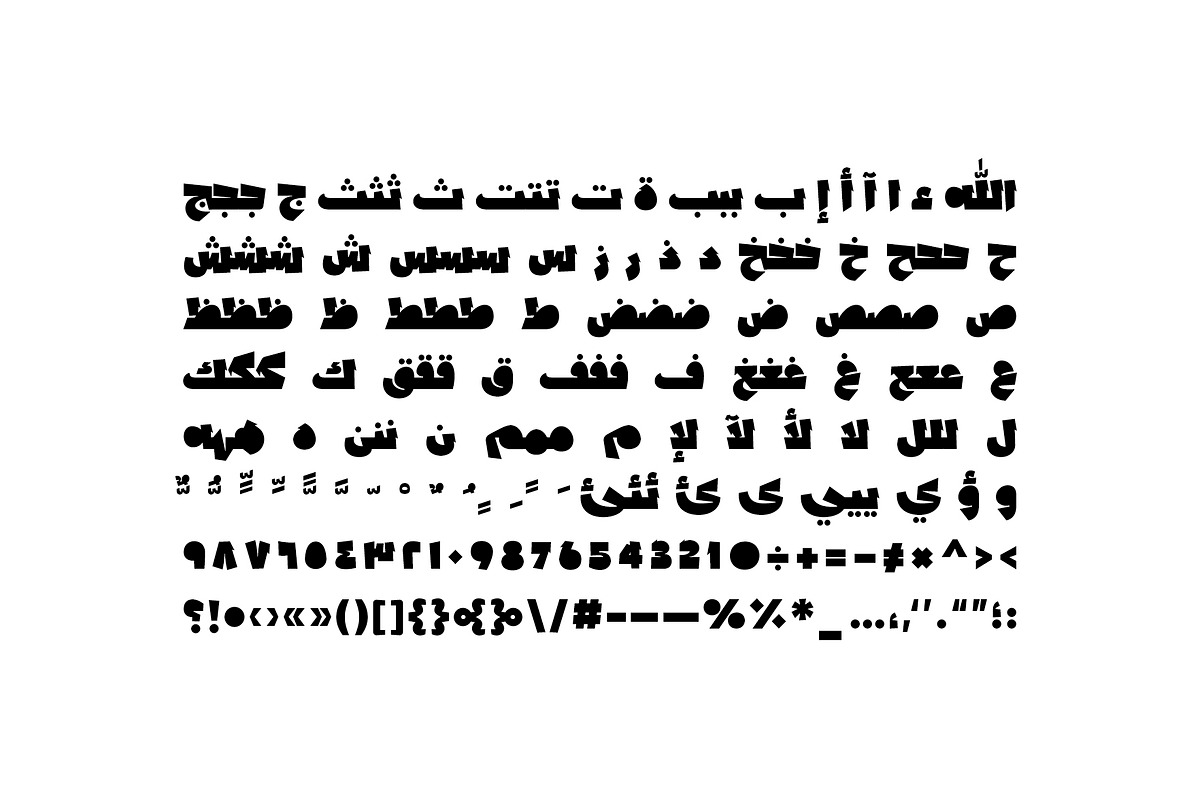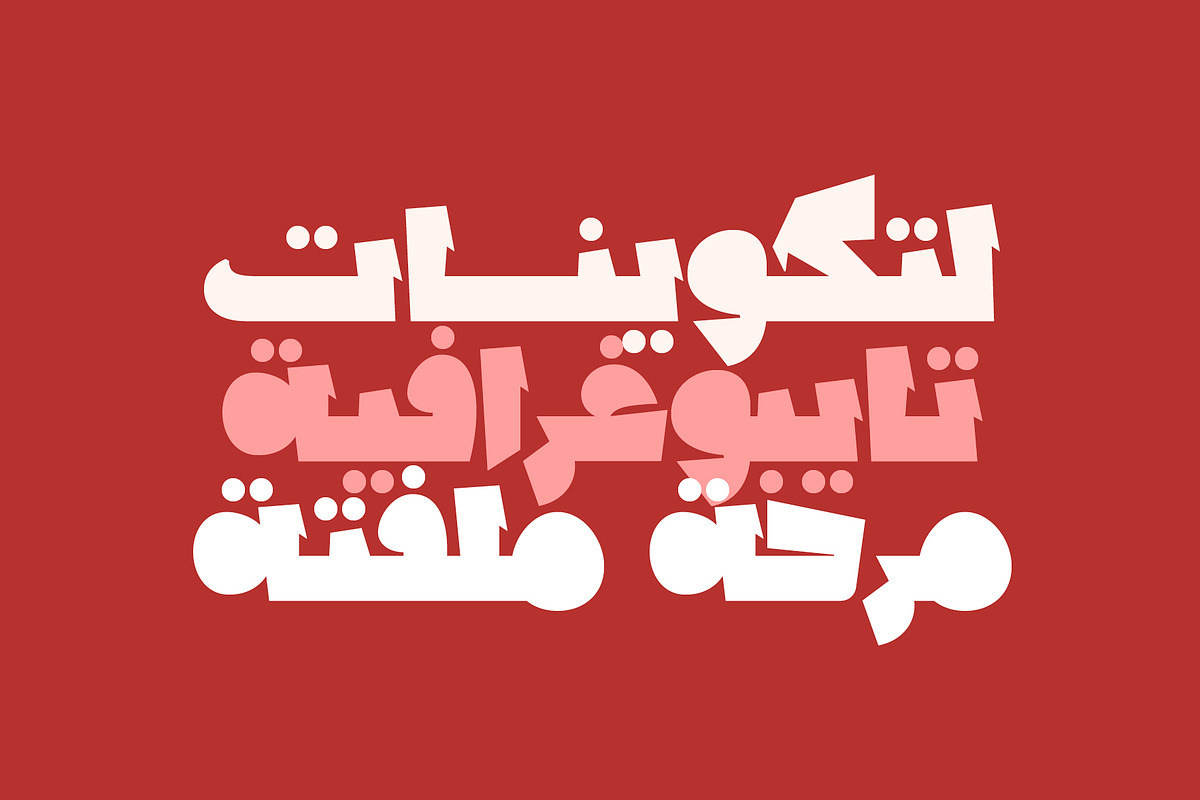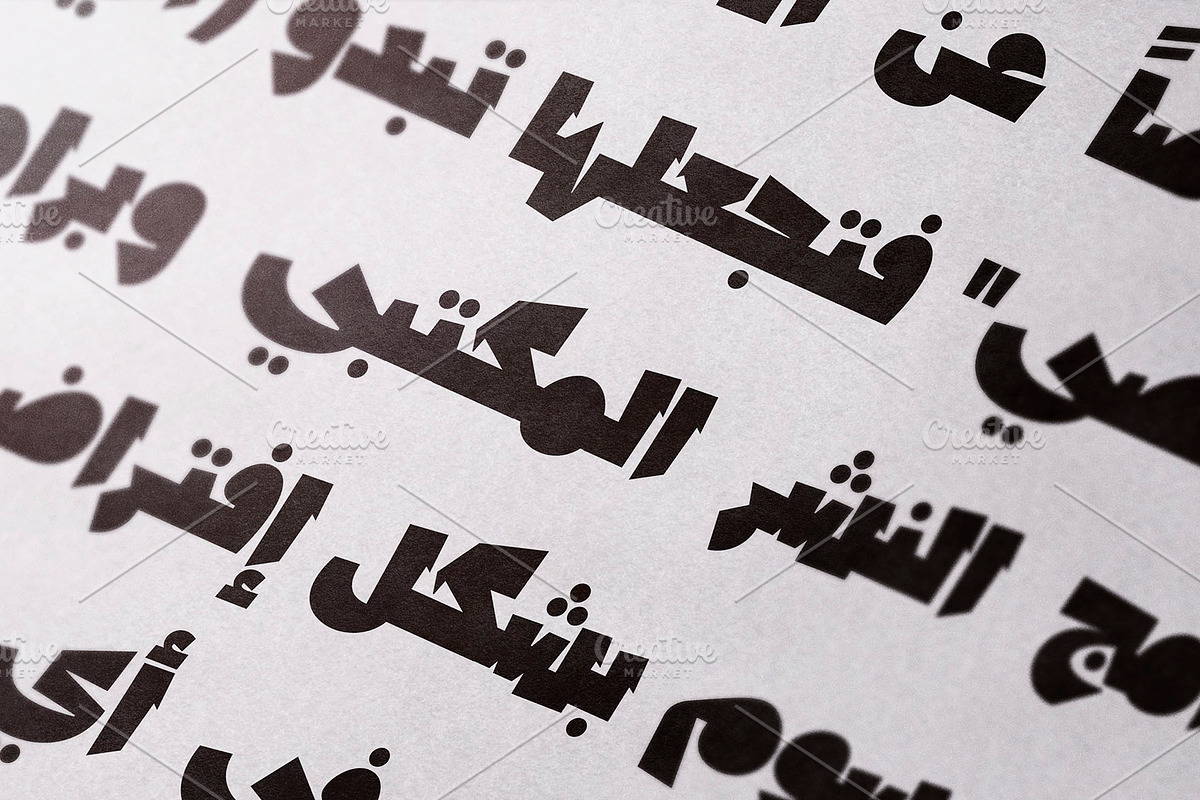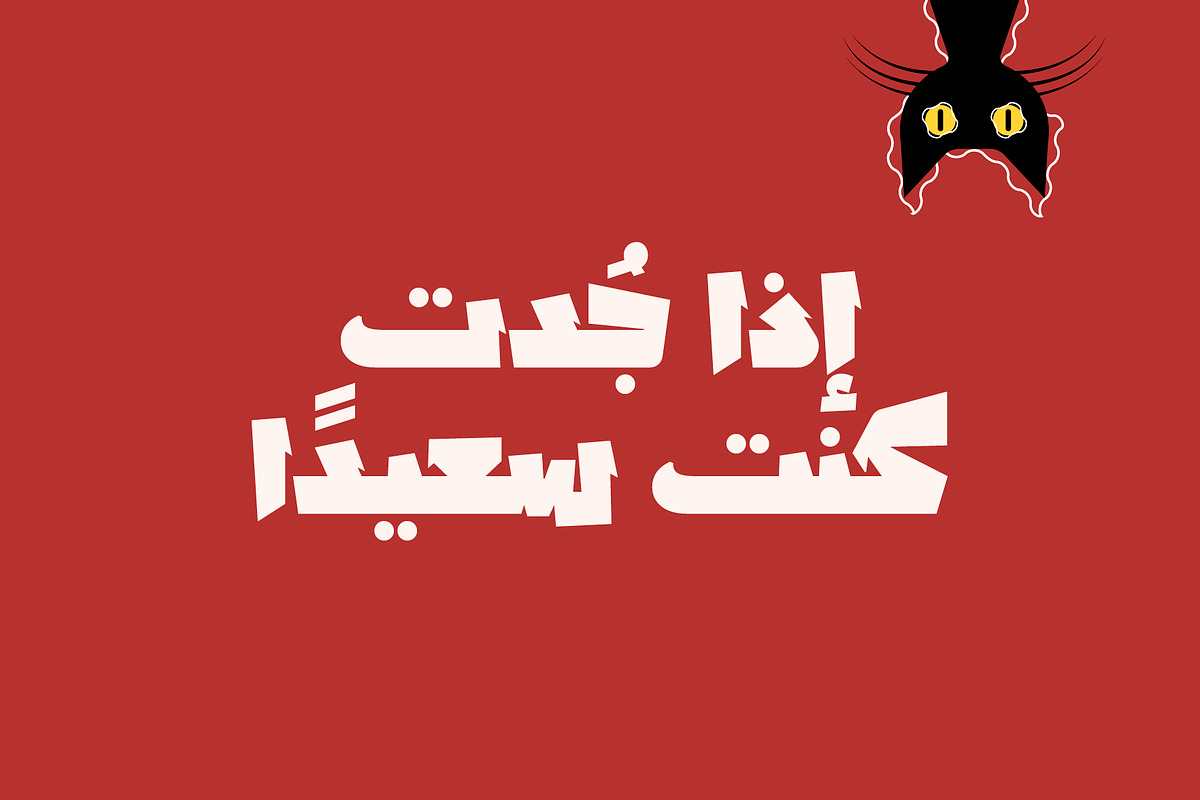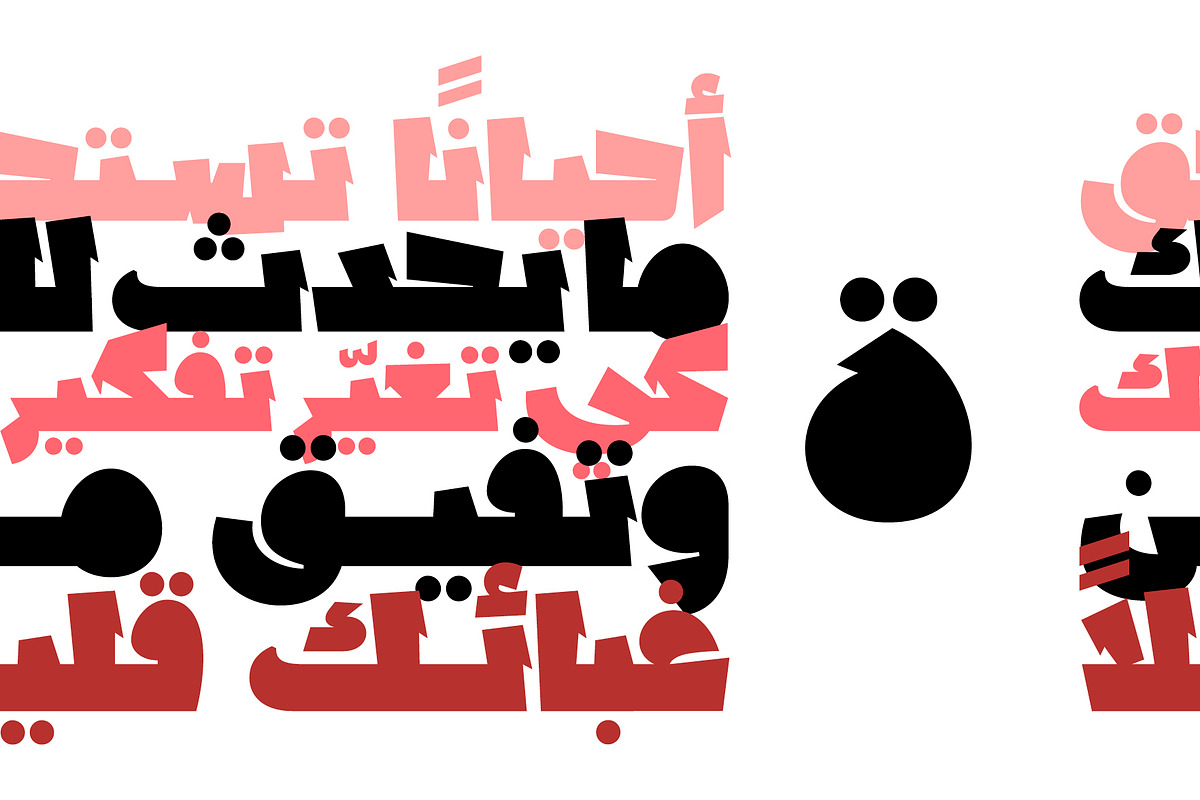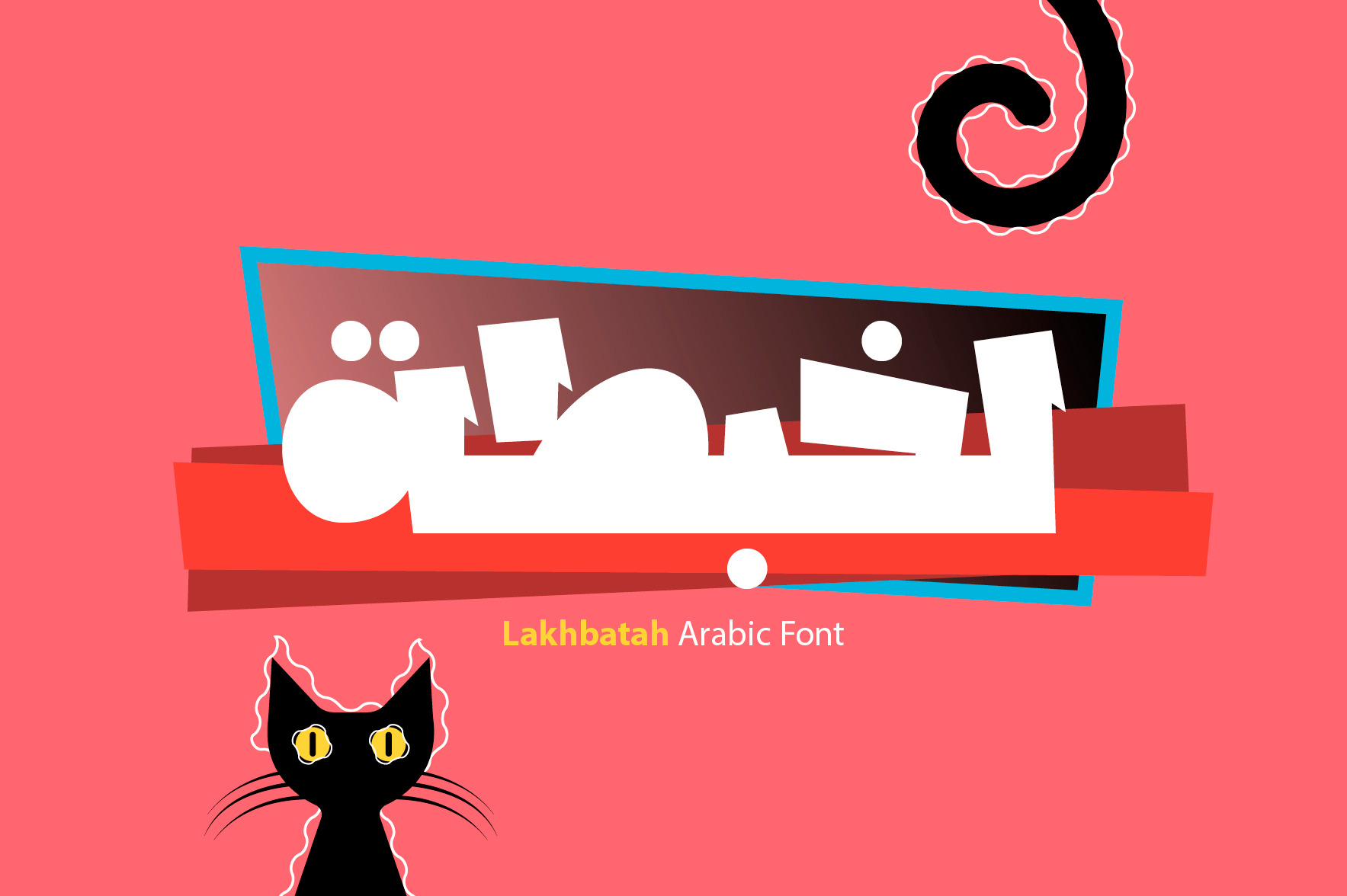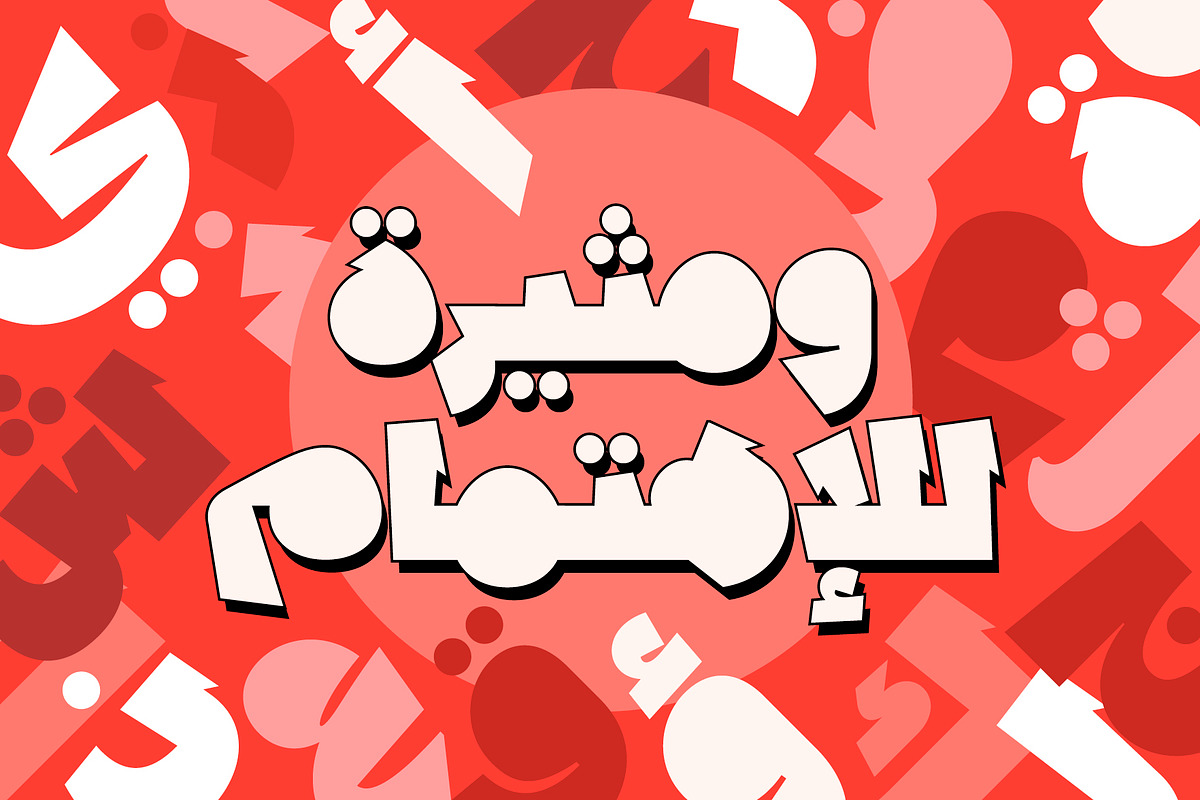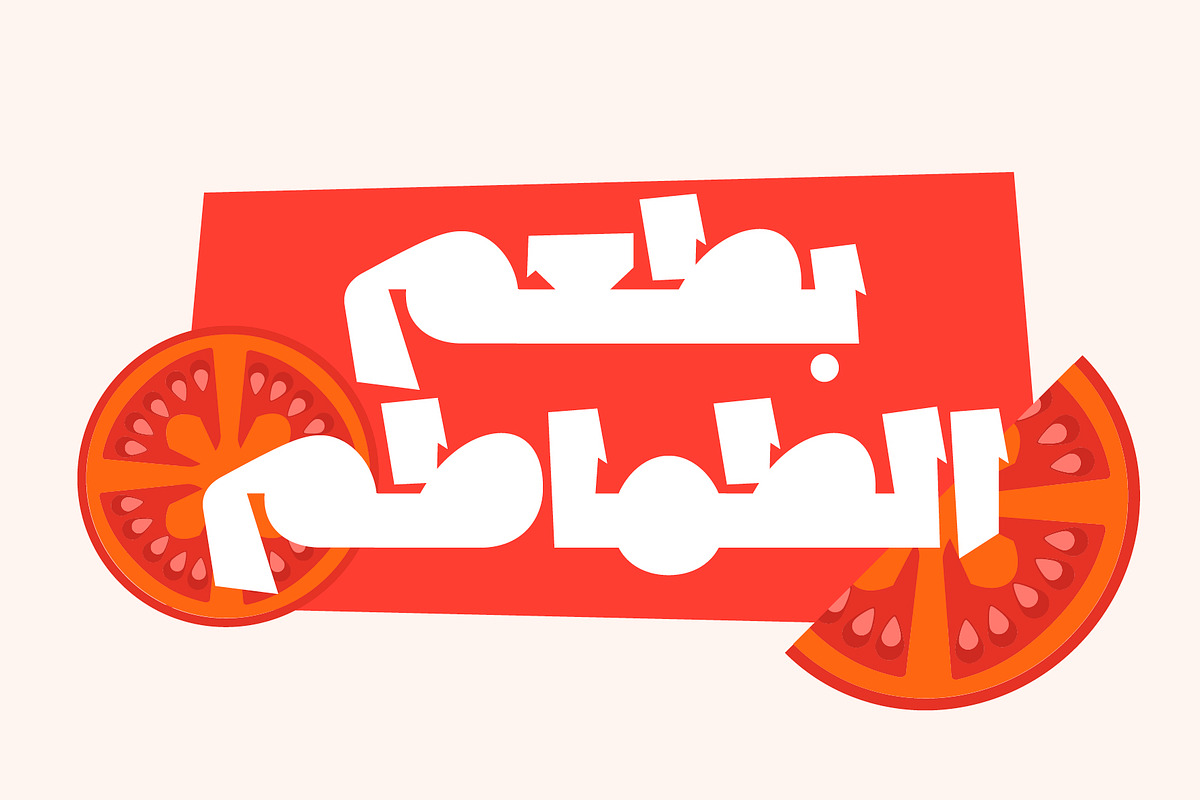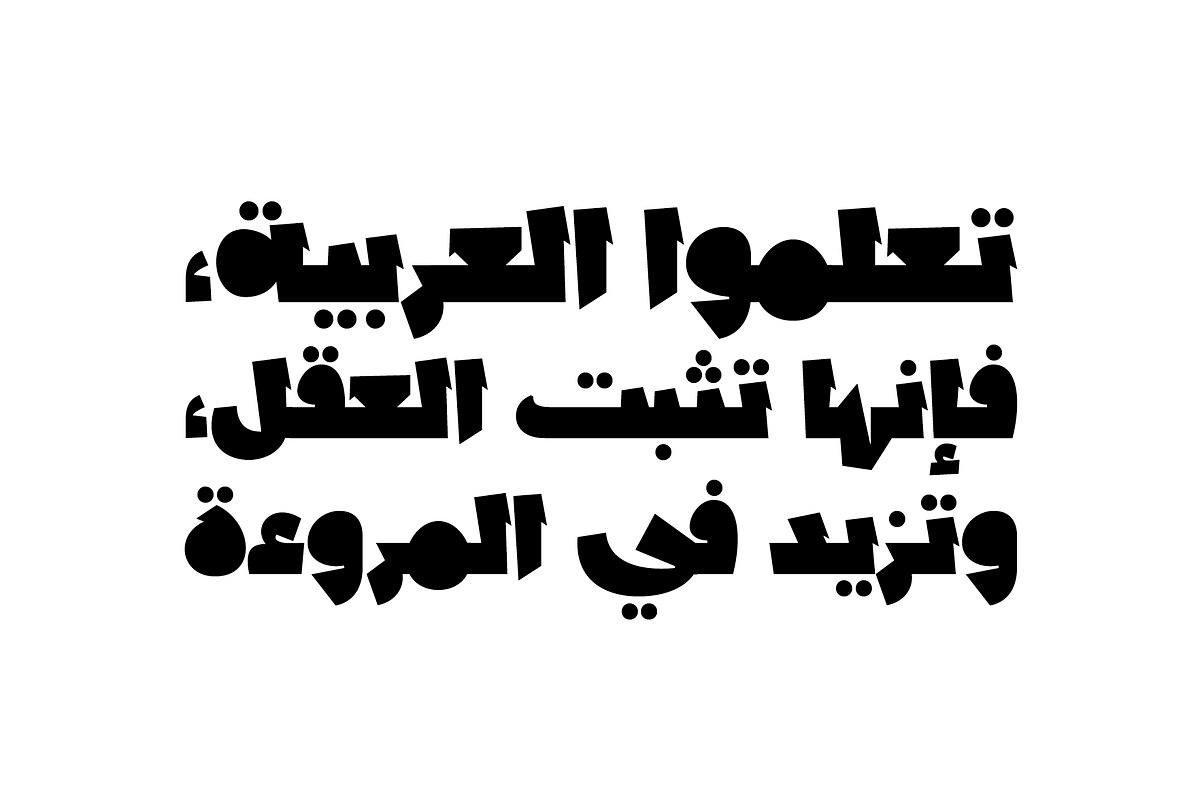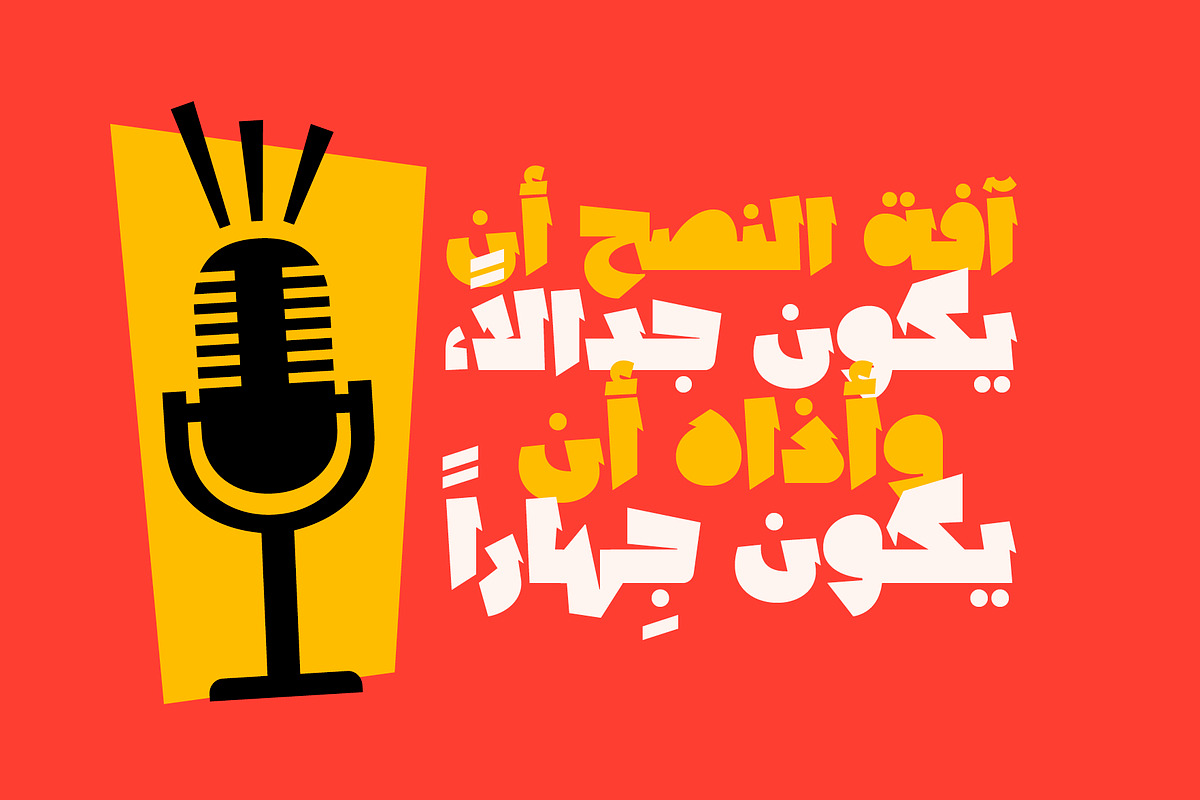
Lakhbatah - Arabic Font
Lakhbatah (which is the Arabic word for Disorder) is an Arabic display font that features spontaneously drawn letterforms. The font’s humorous style makes it suitable for creative titles, branding and advertising on web, print and mobile applications.